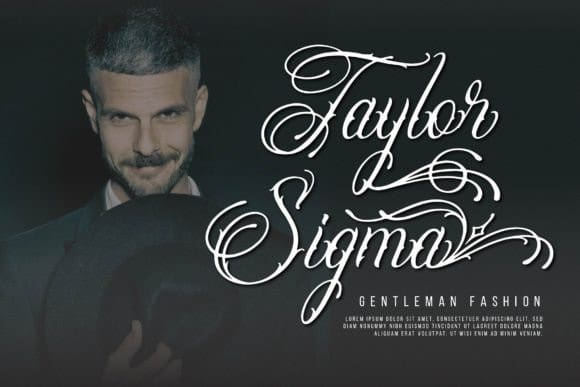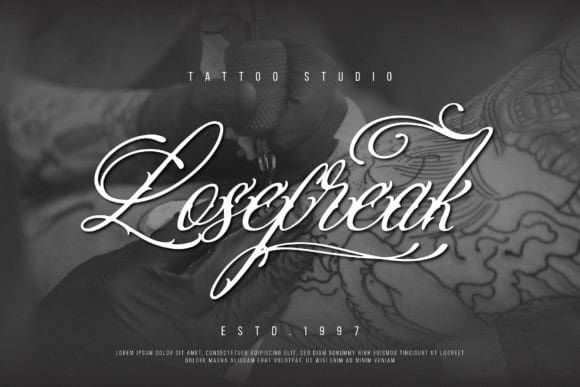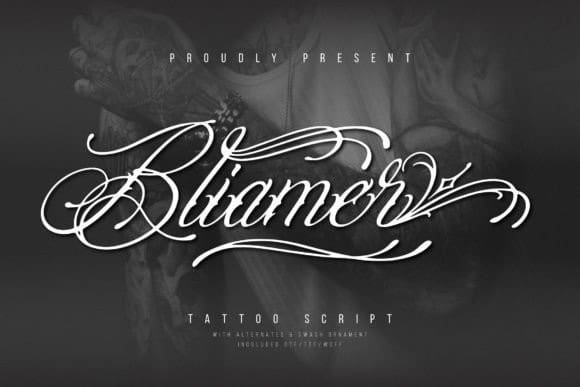
Blaimer Script Font
Blaimer Script Font | Tattoo Script, from Denustudios, suitable for any projects such as logos, branding projects, homeware designs, product packaging, mugs, quotes, posters, shopping bags, t-shirts, book covers, name cards, invitation cards, greeting cards, label, photography, watermark, special events, and all your other lovely projects that need a Tattoo script taste.